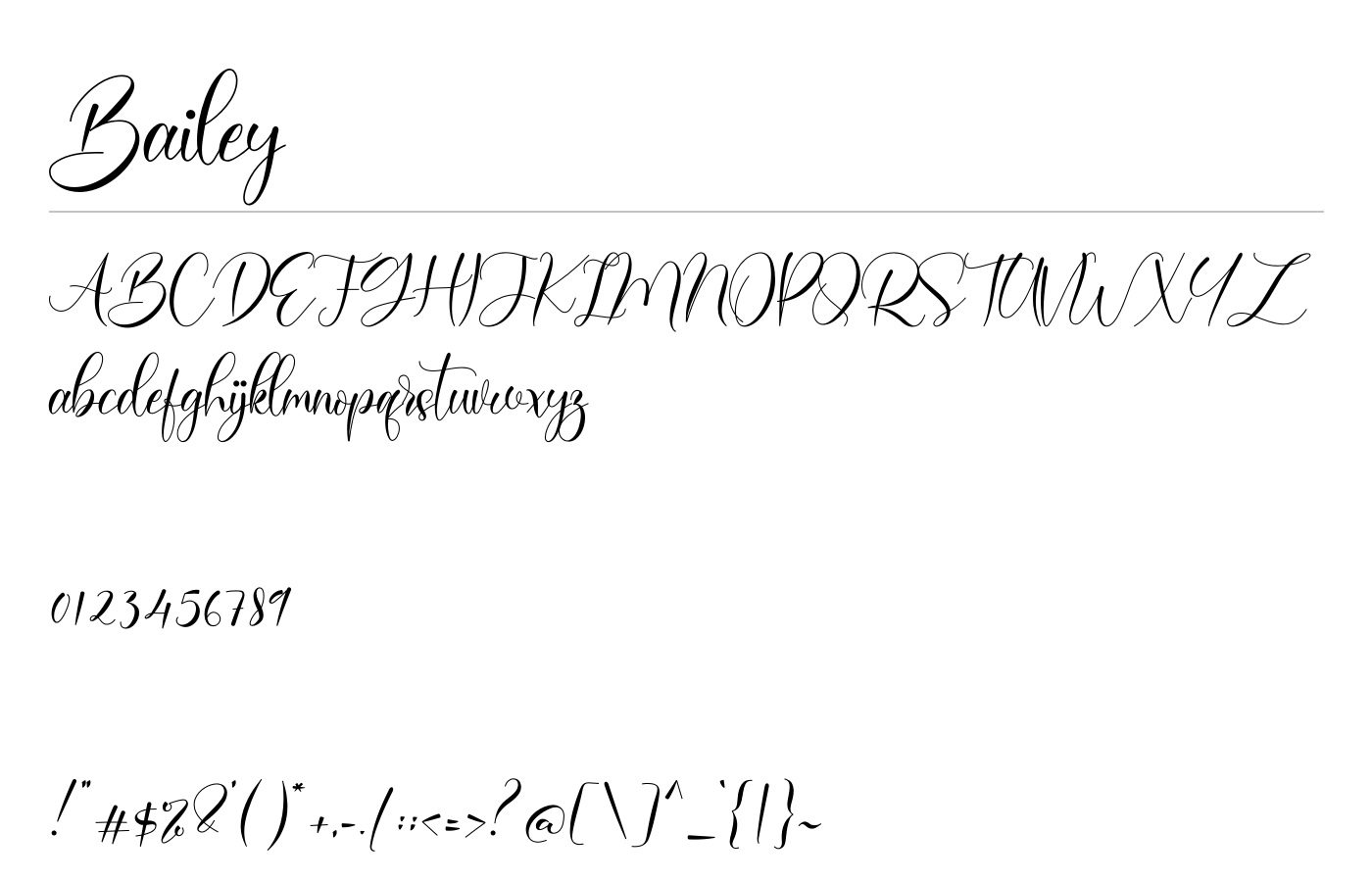
Bailey is an elegant script font with a delicate, flowing style that combines thin, graceful strokes and a high contrast reminiscent of refined calligraphy. Its slender letterforms and smooth connections create a sophisticated and romantic feel, making it ideal for invitations, fashion branding, and upscale editorial use where a personal yet polished touch is desired. The font’s airy yet readable design works best in large sizes for headlines or logos, conveying a sense of charm and elegance.
Bailey Font
About Bailey Font